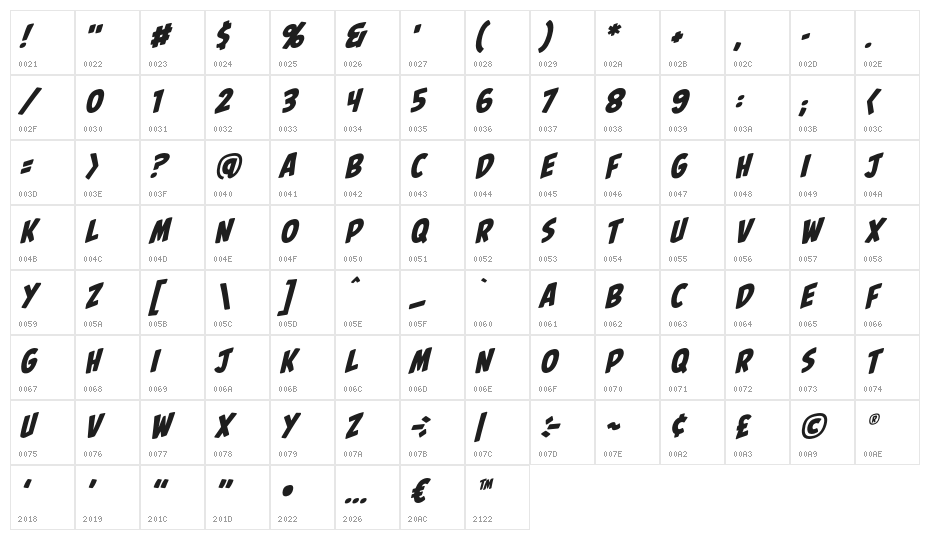
PalookaBB-Italic Font
PalookaBB-Italic Description
This font features a bold and dynamic style with a strong italic slant, giving it a sense of movement and energy. The characters are thick and robust, with a slightly condensed width that enhances its impactful appearance. The strokes are consistent in weight, providing a uniform look across all characters. The font's playful and bold nature makes it ideal for attention-grabbing designs. Its unique style is both modern and slightly retro, reminiscent of vintage comic book lettering or dynamic advertising headlines.
| Overall Style | Retro, Dynamic |
| Use Case | Headlines, Posters, Advertising |
| Proposed Projects | Ideal for comic book titles, retro-themed posters, dynamic advertising, and eye-catching headlines. |